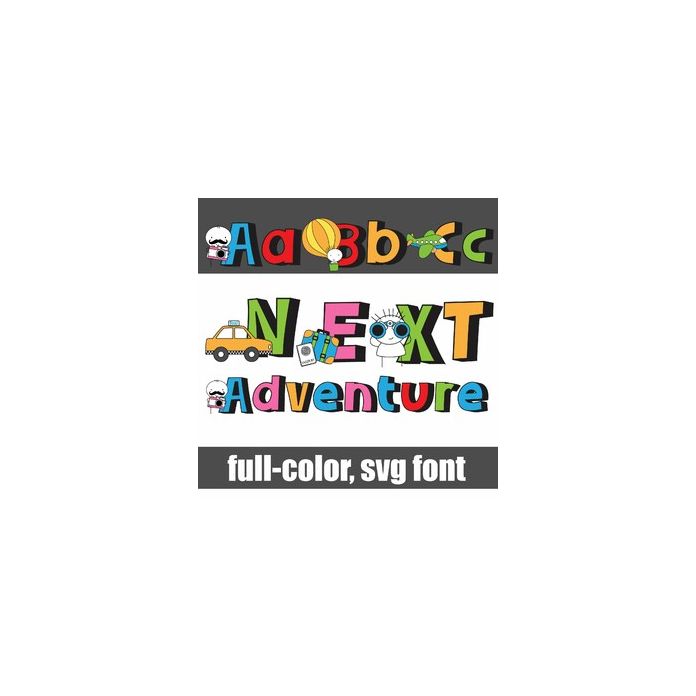
This full-color font features blocky, shadow letters and stick figures traveling on the uppercase. There is an alt case w/ additional colors you can access through your system or Silhouette's glyph map.